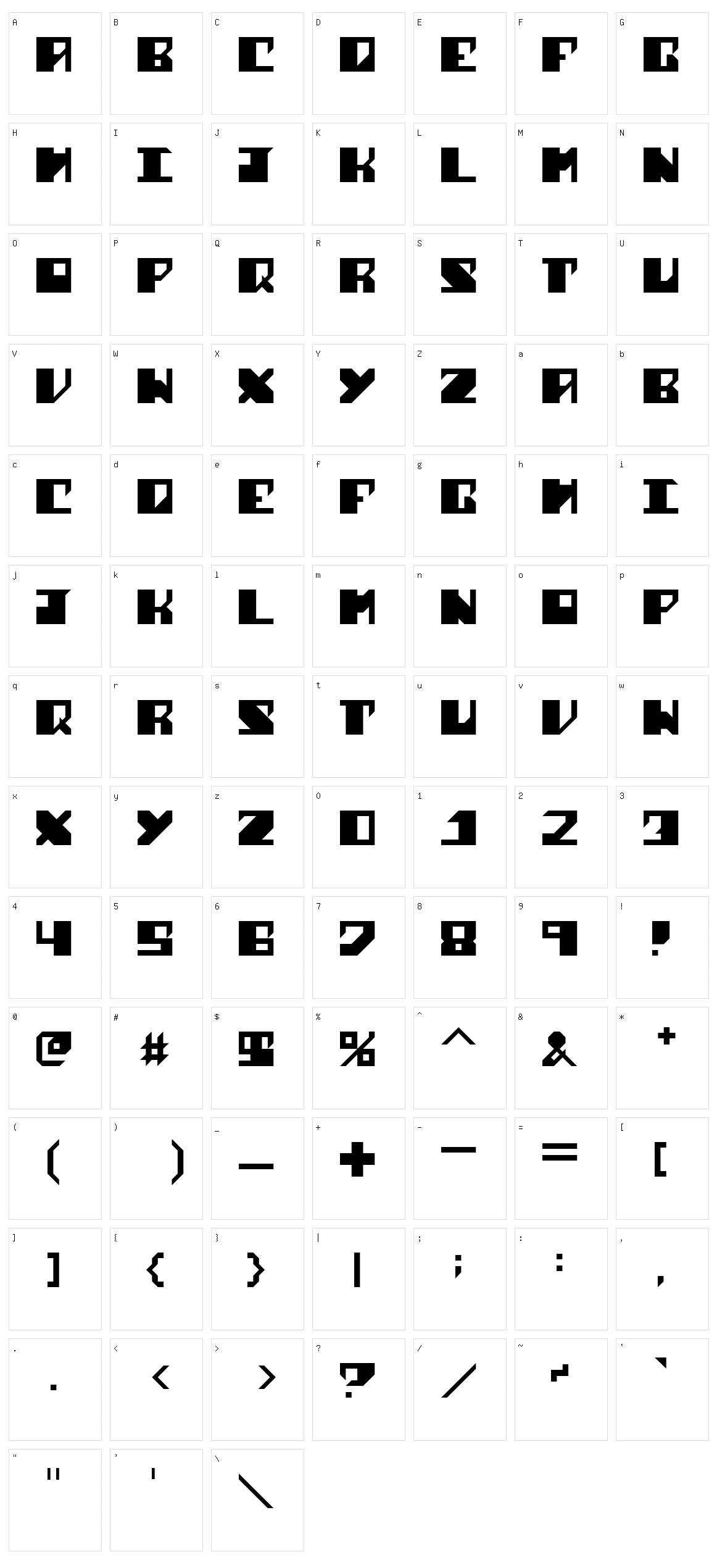
The free font Shark Week is carefully designed by Devon Burgoyne, showcasing a thoughtful balance of creativity and usability and falls under the Square font style. When you download the ZIP file, it contains only 6.52 KB of font files, making it lightweight and quick to download. Please review the license details below to understand permitted usage and distribution rights. If license information is not available, we recommend using this font for personal projects only or contacting the author directly for commercial usage permissions.